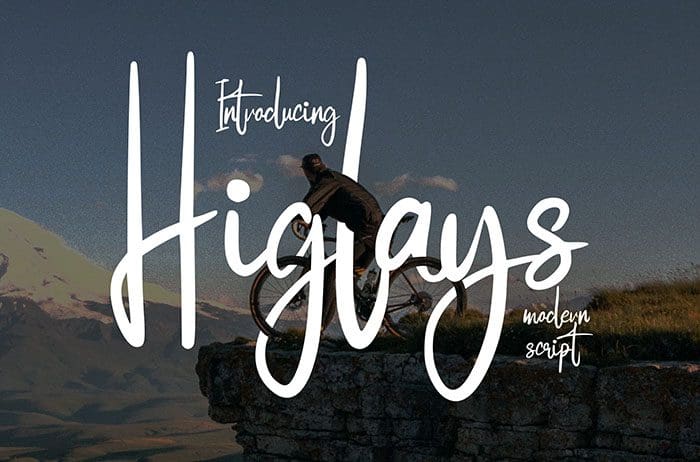
Higlays Script Font
Higlays is a unique and charming script font with a bold vibe. Perfect for logos, posters, wedding invitations, blog posts, social media, and more. Thanks to Vunira for sharing this font. This font free for personal use only, if you need commercial use and full version please download in here.